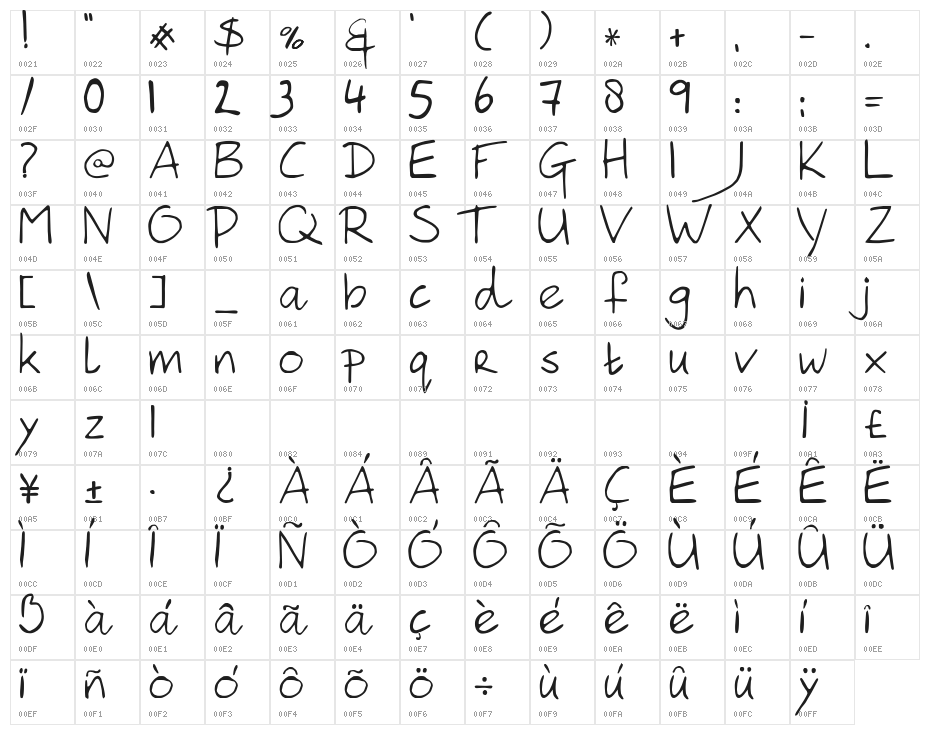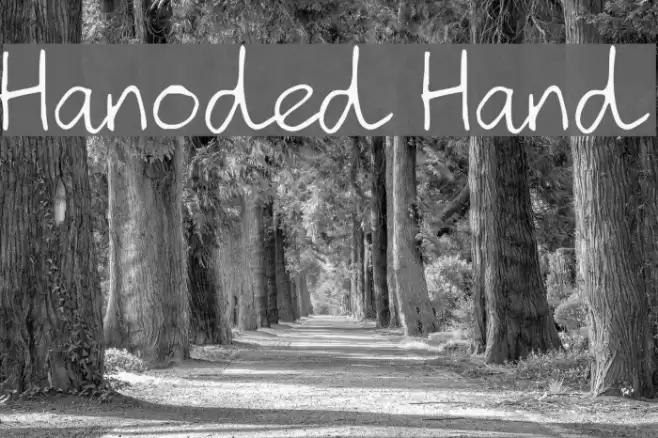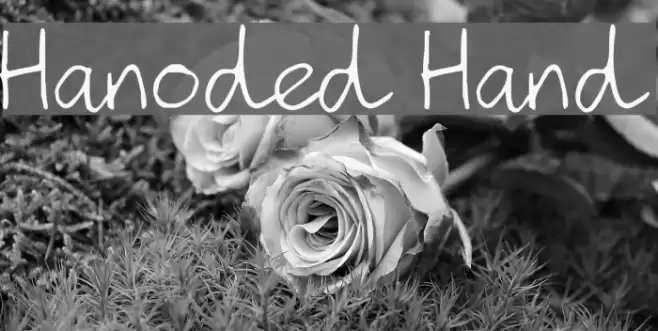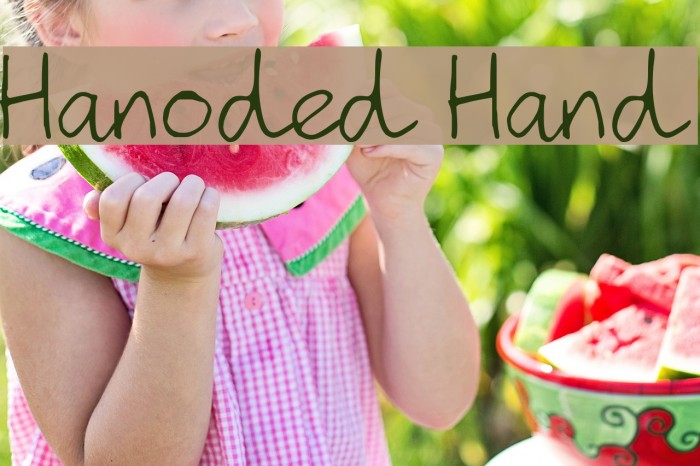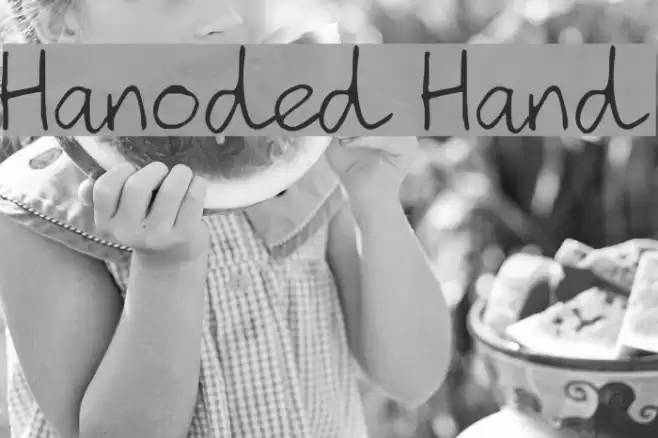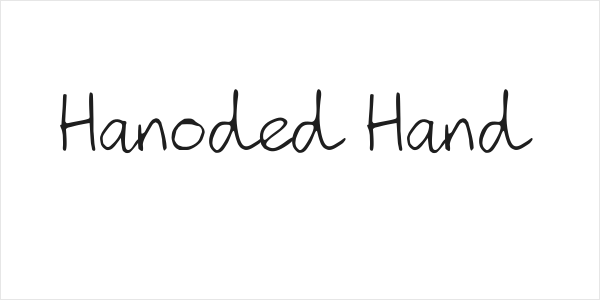
Hanoded Hand Font
Hanoded Hand Description
This font features a playful and casual handwritten style, characterized by its irregular strokes and slightly uneven baseline. The letters are crafted with a natural flow, giving them a personal and informal touch. The uppercase and lowercase letters maintain a consistent style, with rounded edges and a slightly slanted appearance. Numbers and special characters follow the same aesthetic, ensuring a cohesive look across all glyphs. The font's organic feel makes it suitable for projects that require a friendly and approachable tone.
| Use Case | Headlines, Informal text, Personal projects |
| Proposed Projects | Ideal for greeting cards, invitations, personal branding, and social media graphics. |